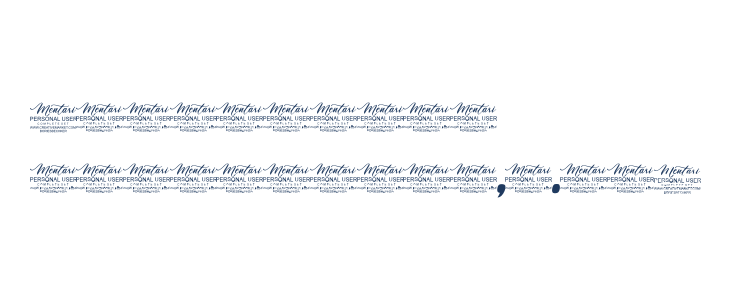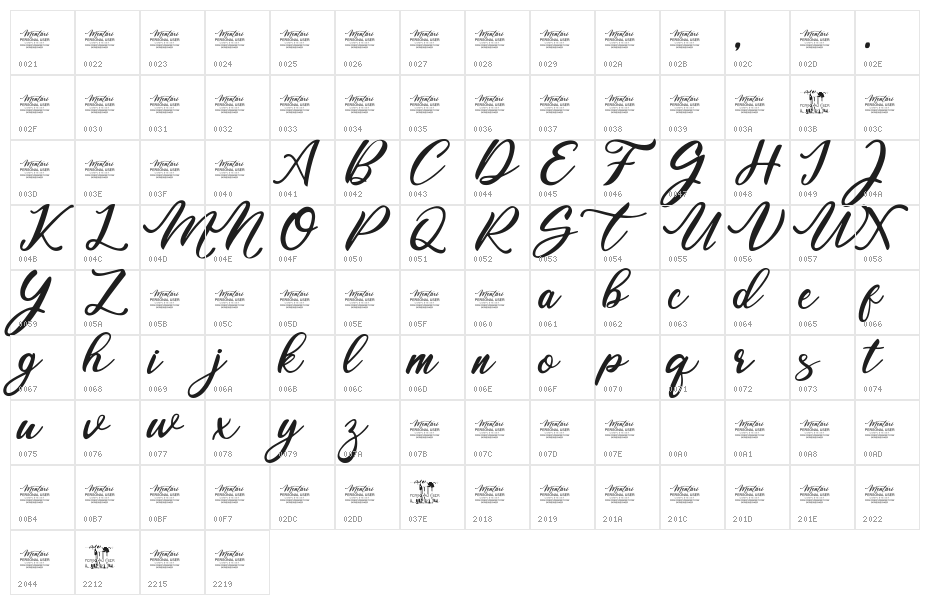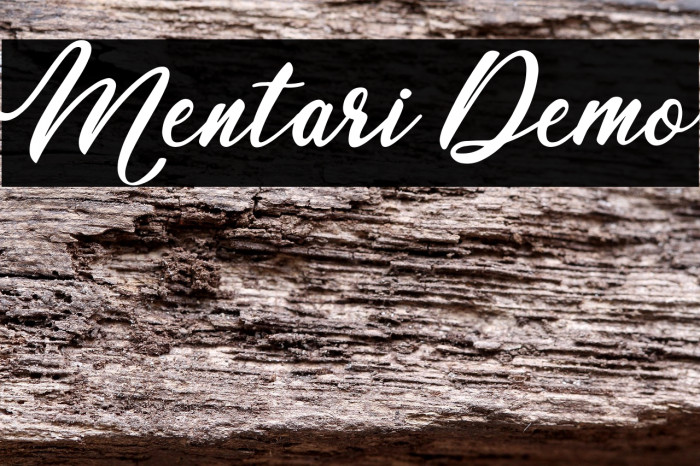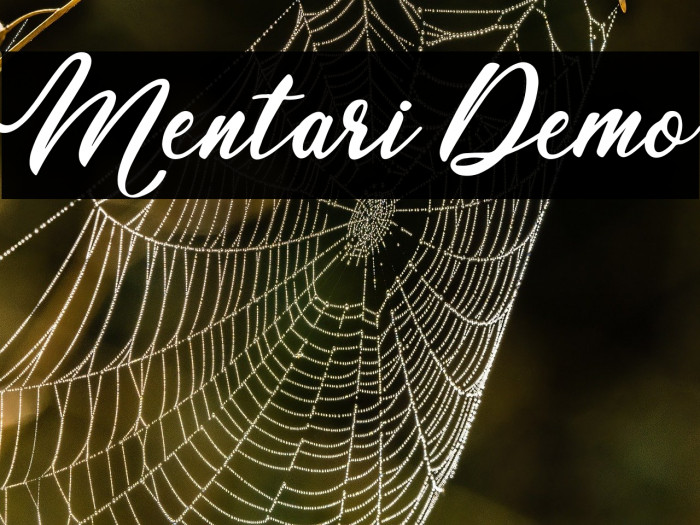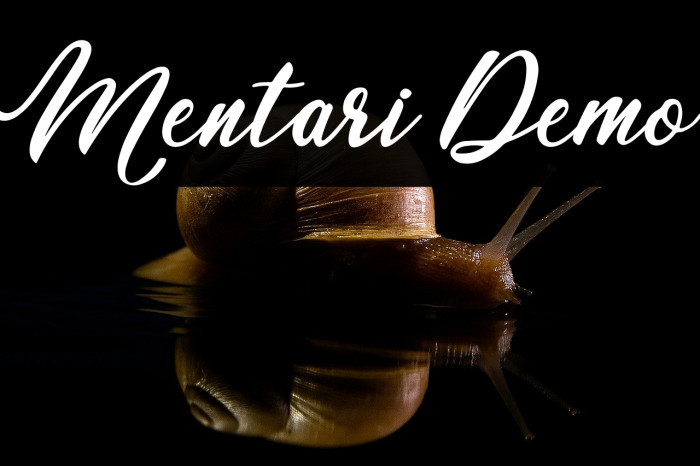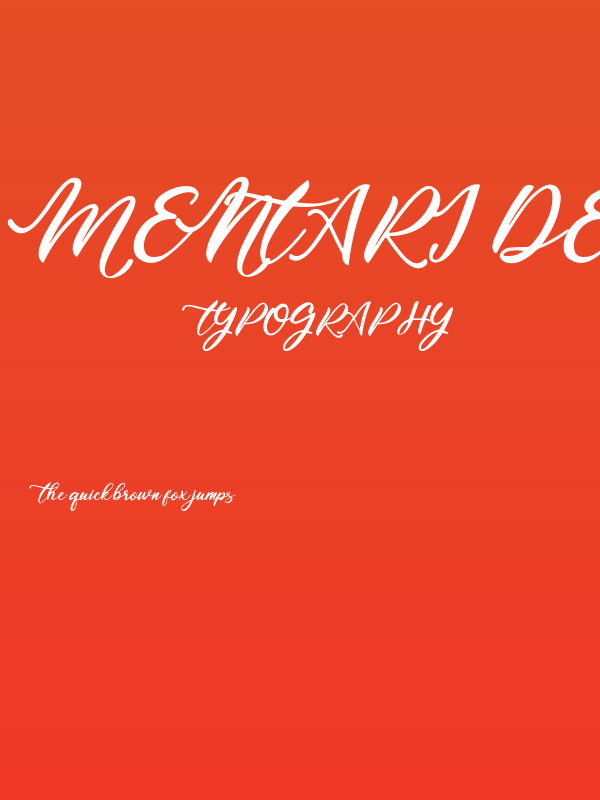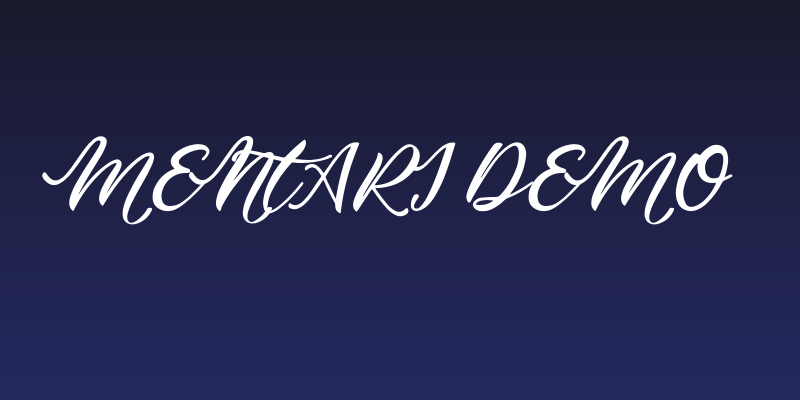
Mentari Demo Font
Mentari Demo Description
This font features a flowing, cursive style with elegant loops and swashes, giving it a sophisticated and artistic appearance. The letters are connected, enhancing its script-like quality, and the overall design is both fluid and dynamic. The uppercase letters are bold and prominent, while the lowercase letters maintain a consistent flow, making it ideal for creating a sense of movement and grace. The font's design is reminiscent of traditional calligraphy, yet it maintains a modern touch, making it versatile for various creative applications.